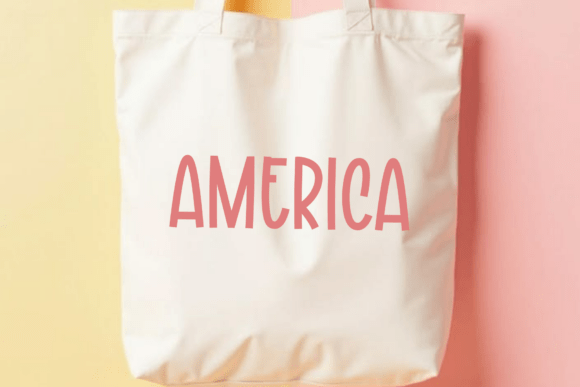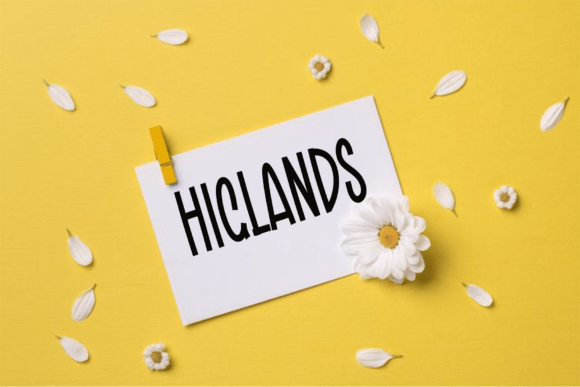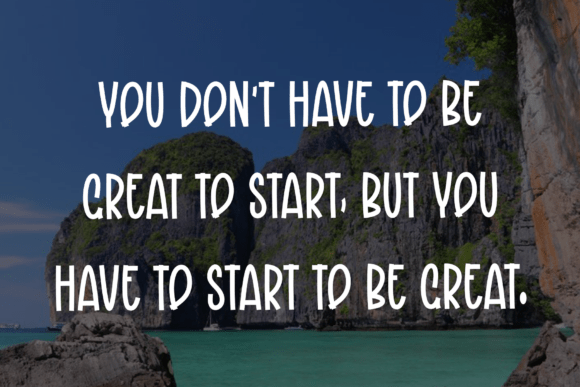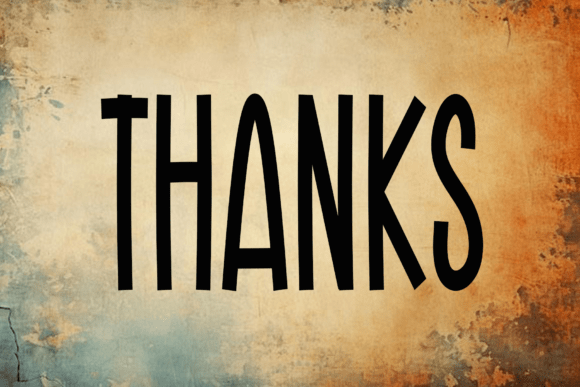
The Easter Font: A Breath of Fresh Air for Your Designs
I’ll never forget the time I was working on a project for an outdoor gear client, and I was struggling to find the perfect font to capture the essence of their brand. The design needed to evoke a sense of adventure, freedom, and a connection to nature. That’s when I stumbled upon the Easter font, and it was like a mountain breeze swept through my design woes. In this article, I’ll share my experience with this unique and professional font, and how you can make the most of it in your designs.
Here’s what I’m obsessed with about the Easter font:
- ✨ Tall, thin strokes that give it a crisp, elegant feel
- ✅ Subtle, airy slant that adds a touch of sophistication
- 🌟 Clean and approachable style that’s perfect for travel photography, outdoor gear branding, and web design
As for quirks, I’ve noticed a few things to keep in mind:
- ⚠️ Some letters may appear a bit narrow when used in large blocks of text, so it’s best to use it for headlines or titles
- 🤔 Not ideal for body text due to its elegant, yet refined nature
The Easter font was designed with the intention of capturing the essence of a fresh mountain breeze. Its creator wanted to craft a font that would evoke a sense of adventure, freedom, and a connection to nature. With its tall, thin strokes and subtle slant, the Easter font is the perfect reflection of this design philosophy.
| What is the Easter font best suited for? | The Easter font is ideal for travel photography, outdoor gear branding, and sophisticated web design. |
| Is the Easter font available in different weights? | Currently, the Easter font is available in a single weight, but its versatility and elegance make it suitable for a wide range of design applications. |
| Can I use the Easter font for body text? | While the Easter font is elegant and refined, it’s best suited for headlines or titles due to its thin strokes and subtle slant. |